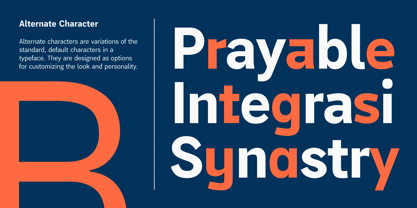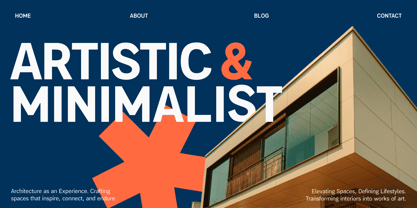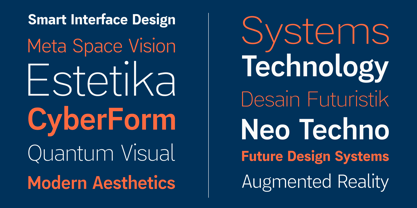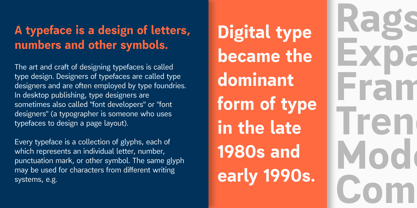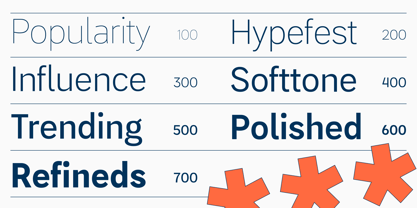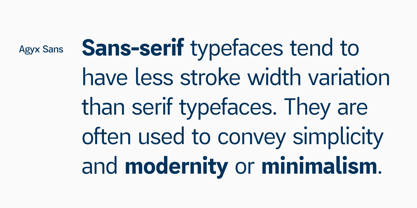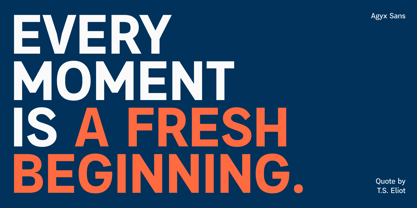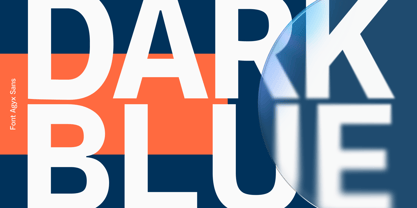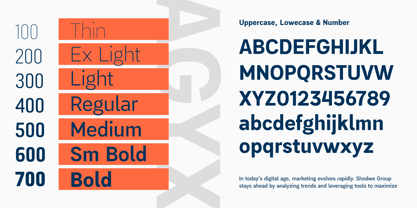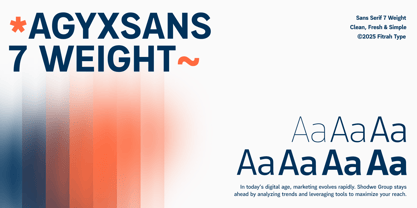
Agyx Sans Variable
by Fitrah Type
The Agyx Sans Variable Font Family was designed by Moch Fitrah Hidayat and published by Fitrah Type. Agyx Sans Variable contains 1 styles. More about this family
Agyx Sans is a contemporary sans-serif typeface characterized by its precision and simplicity. With meticulously balanced letterforms and a streamlined structure, it showcases a modern aesthetic ideal for various design applications, including branding, editorial projects, and digital interfaces.
The font combines sharp yet approachable features that enhance readability while maintaining a distinctive personality. Agyx Sans is an excellent option for designers who desire a professional appearance imbued with a modern flair, making it suitable for both corporate identities and creative endeavors.
Designers: Moch Fitrah Hidayat
Foundry: Fitrah Type